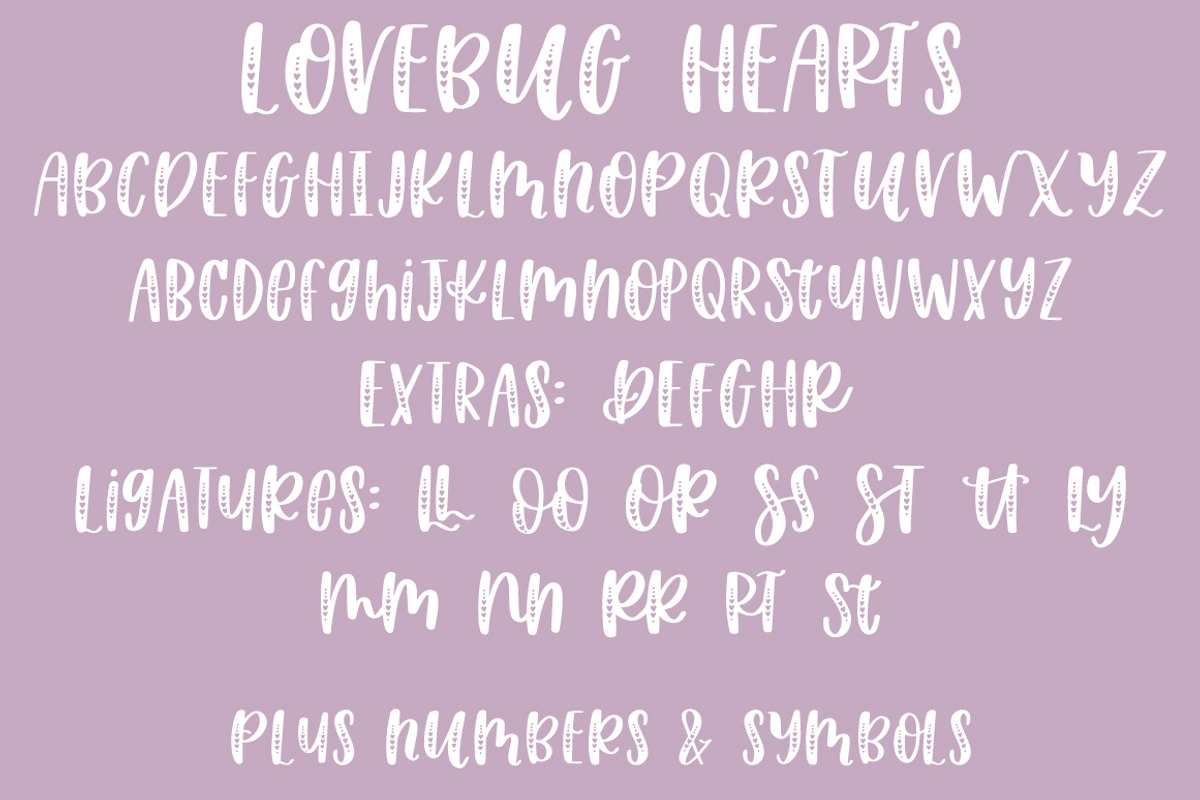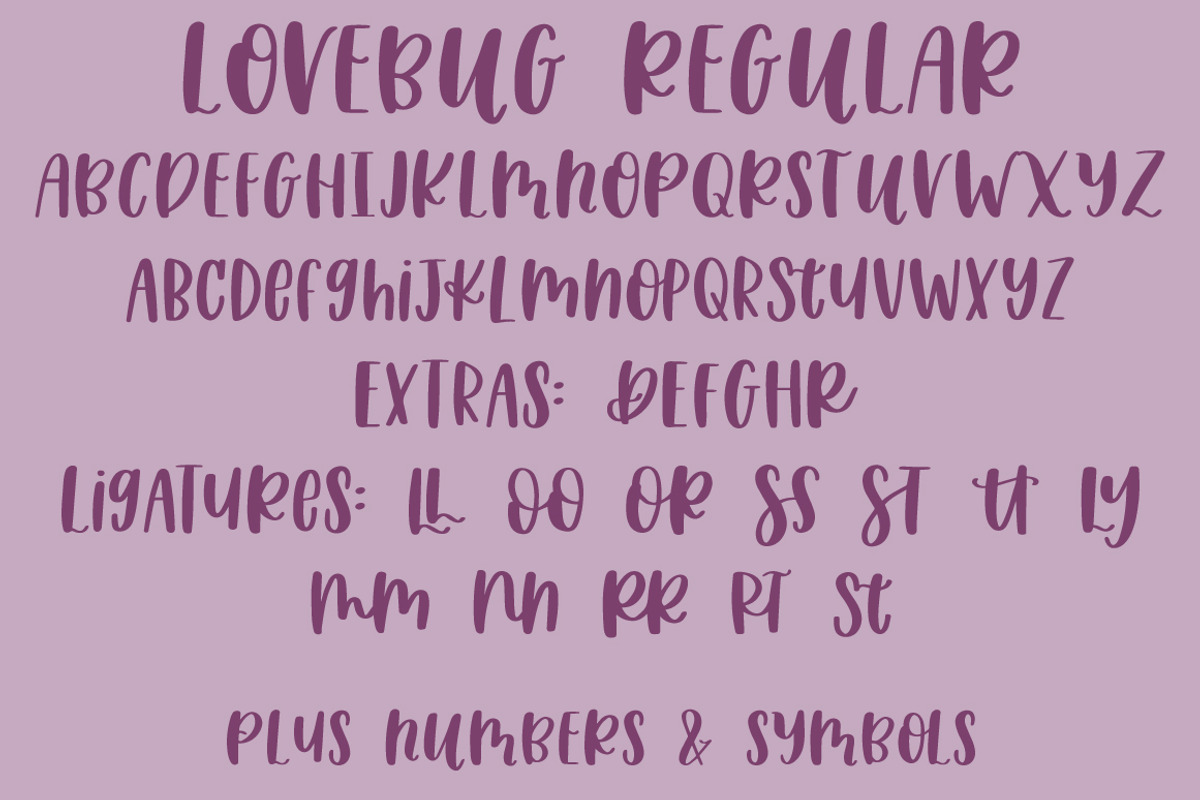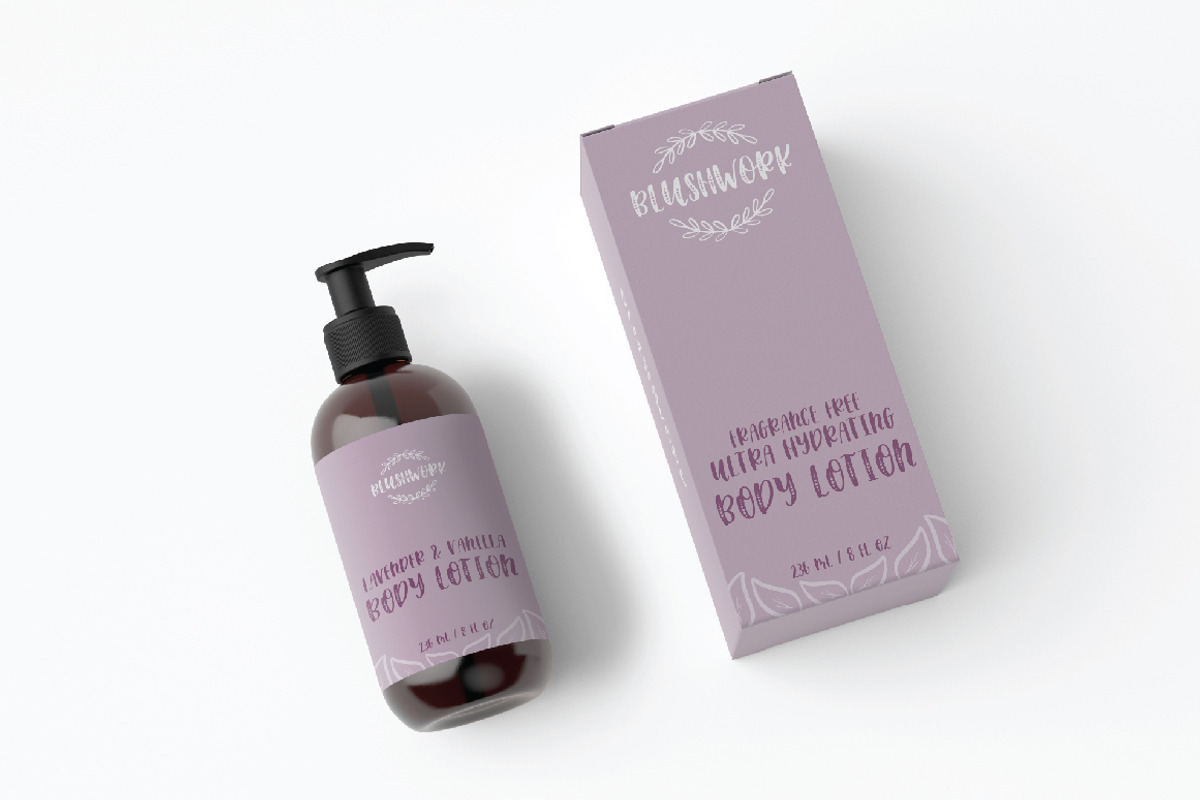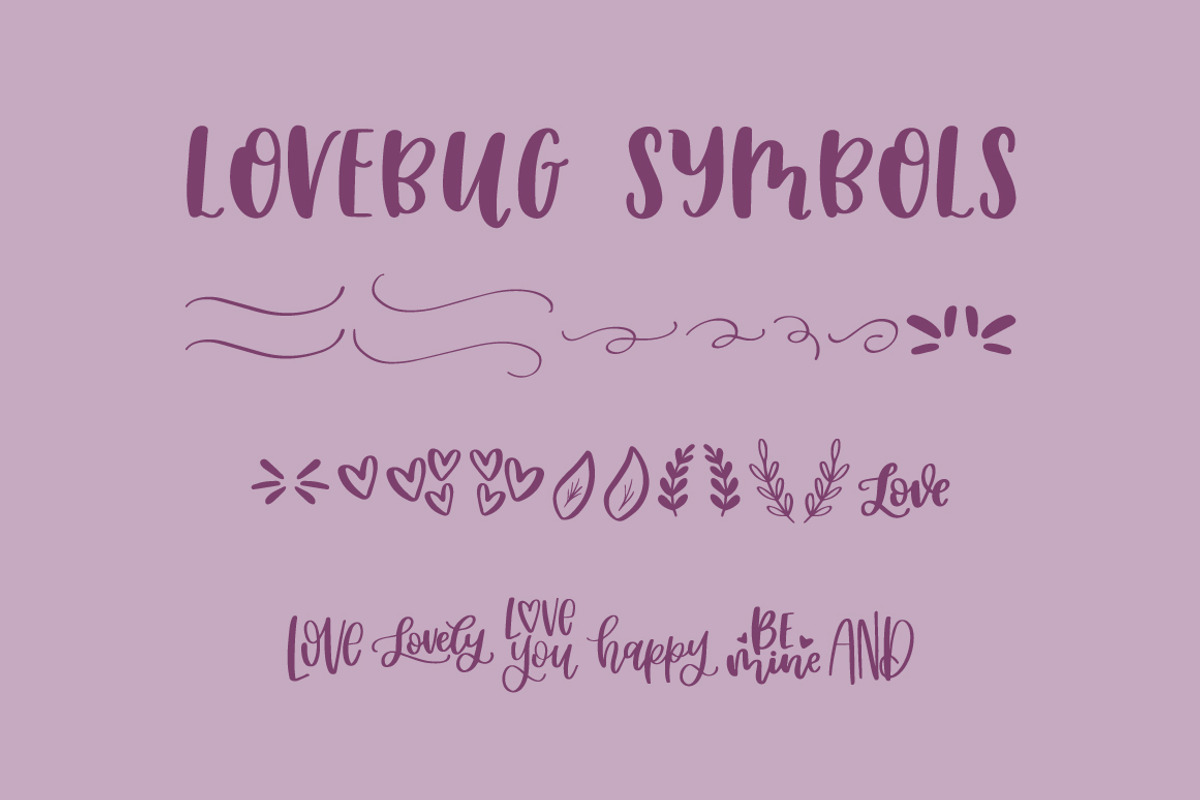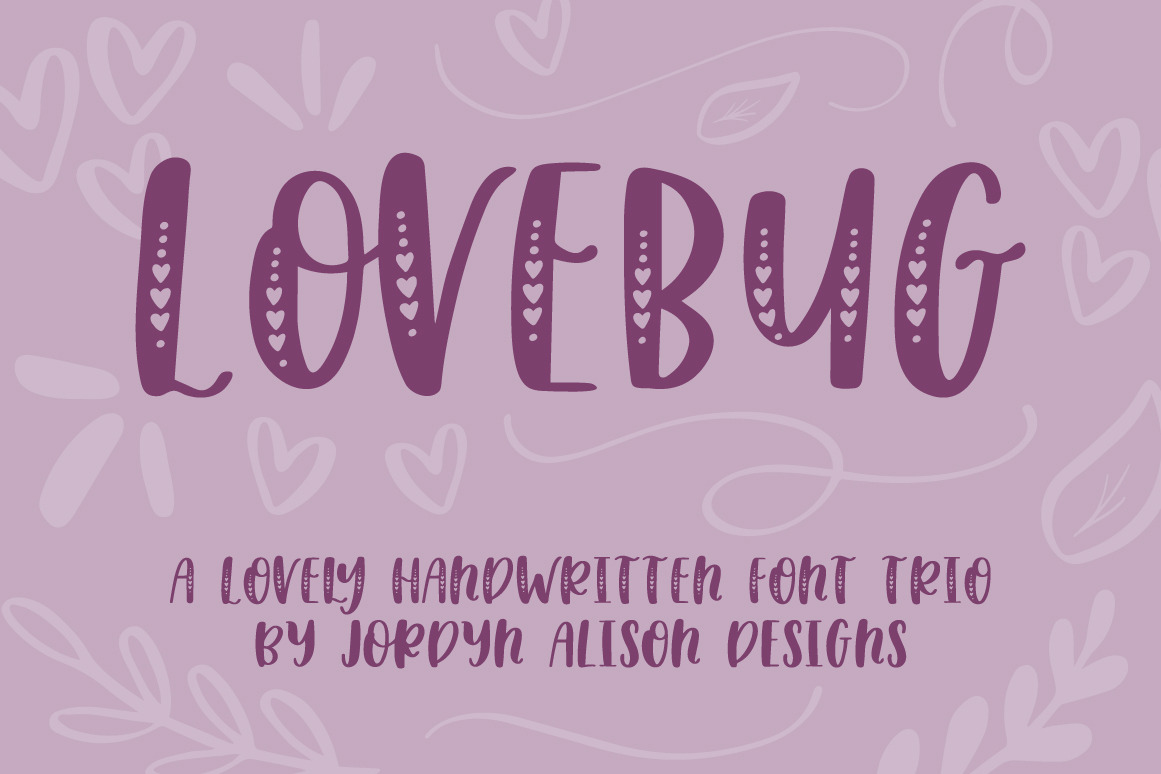
Lovebug Hearts Font Trio
OCT 2019 UPDATE: Lovebug now has two sets of letters! As well as adding 26+ new characters, ligatures and alternate characters have been updated.
Lovebug is a fun, handwritten font trio that includes a regular solid font, the hearts font, and a symbols font. Click through to see everything included!
The Regular & Hearts font have:
- 6 discretionary ligatures, 6 standard ligatures
- 6 alternate characters